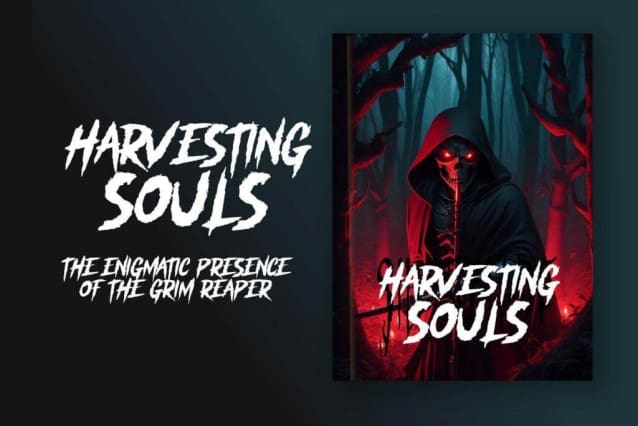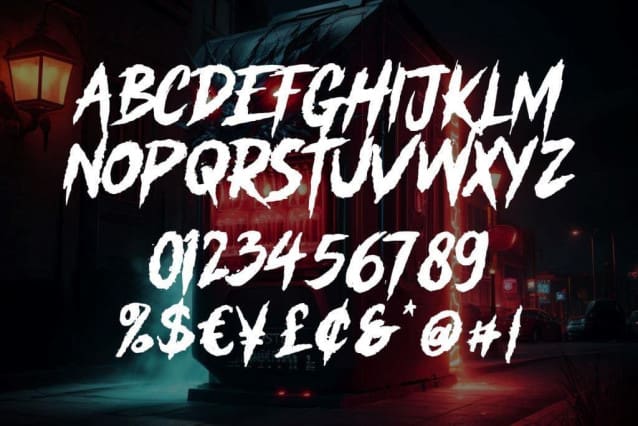
Monster Chiller Font
Monster Chiller Font is a font that creates a atmosphere of horror and tension. This font has strong and eerie characteristics, with thick and sharp lines that create a chilling impression. The letters in this font may have scratches, spikes, or other design elements that evoke terrifying creatures or monsters.
The color of Monster Chiller font is often dark, such as black, blood red, or deep purple, creating a sense of darkness and fear. When used in graphic design, this font has the ability to introduce elements of horror, mystery, and intense tension. It’s a perfect choice if you want to create a design that is spooky or frightening. Monster Chiller is capable of adding a very creepy touch to your creative projects.